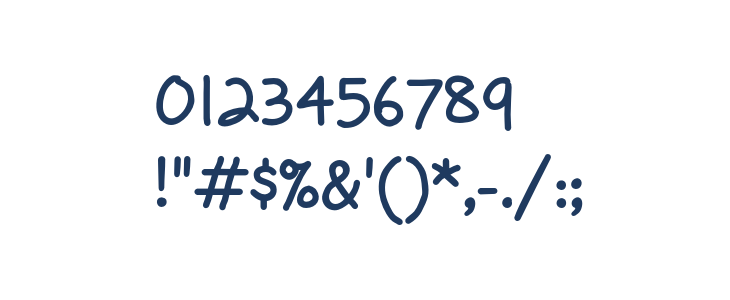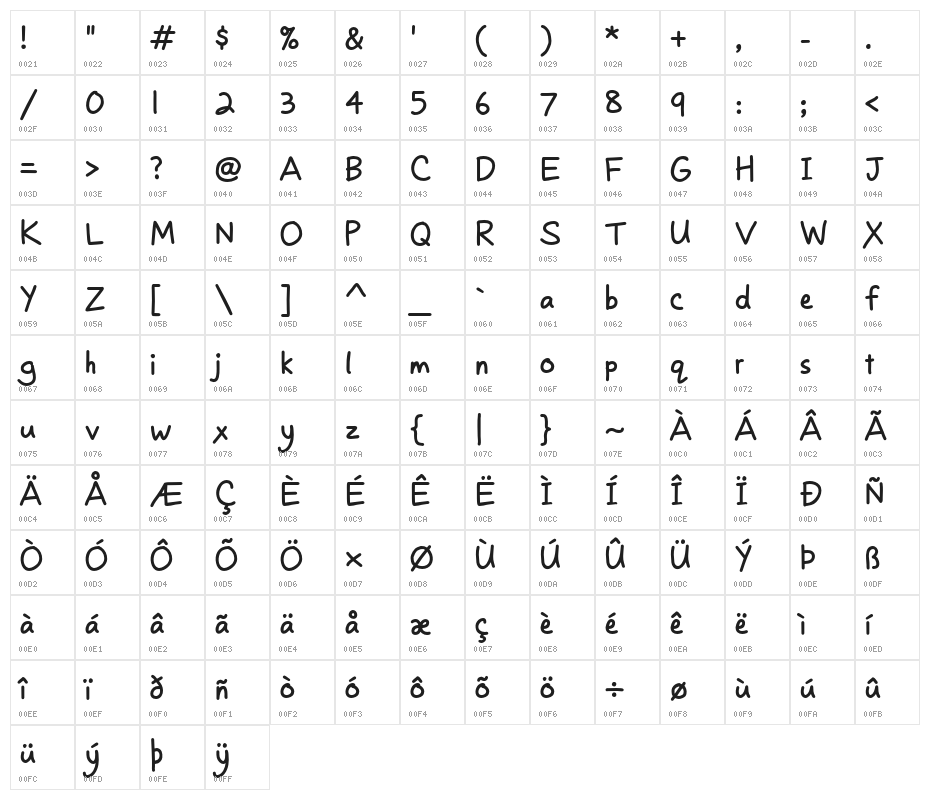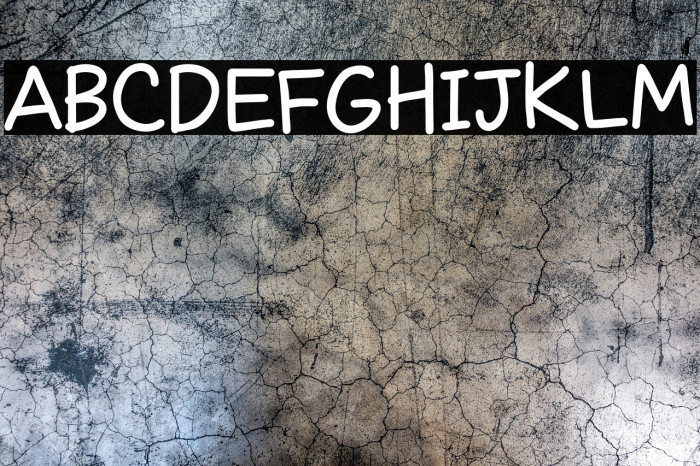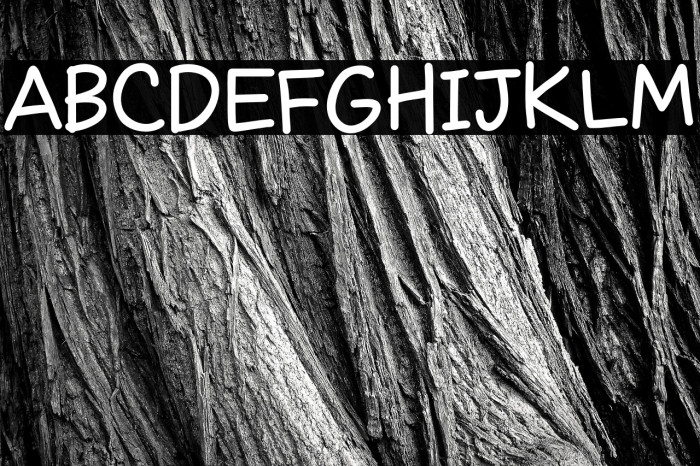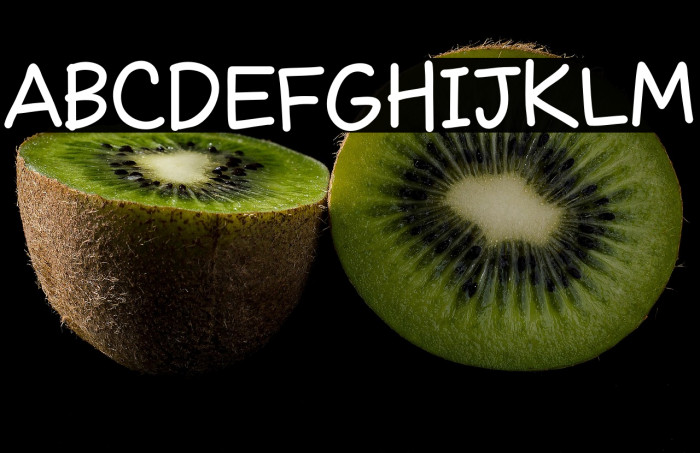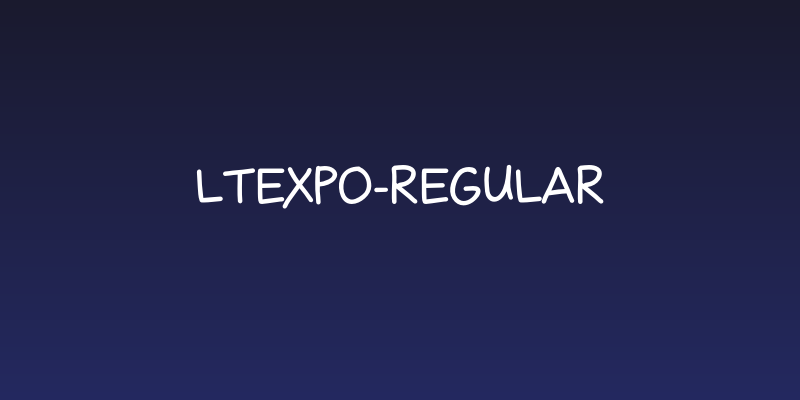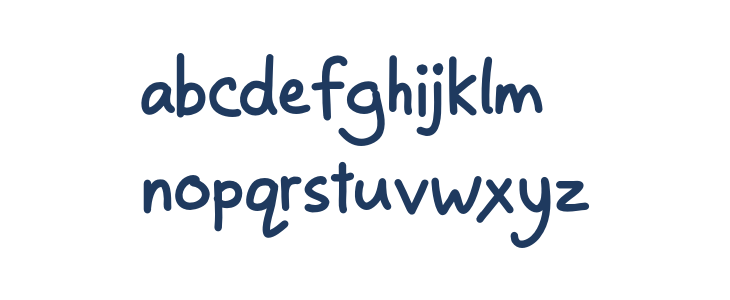
LTExpo-Regular Font
LTExpo-Regular Description
This font features a playful and casual handwritten style, characterized by its rounded edges and slightly irregular letterforms. The uppercase and lowercase letters maintain a consistent flow, giving it a friendly and approachable appearance. The numerals and special characters are crafted with the same informal touch, making them blend seamlessly with the alphabet. This font is highly legible and versatile, suitable for various creative projects that require a personal and informal touch.
| Use Case | Headlines, Logos, Informal text |
| Proposed Projects | Ideal for greeting cards, children's books, informal invitations, and playful branding. |